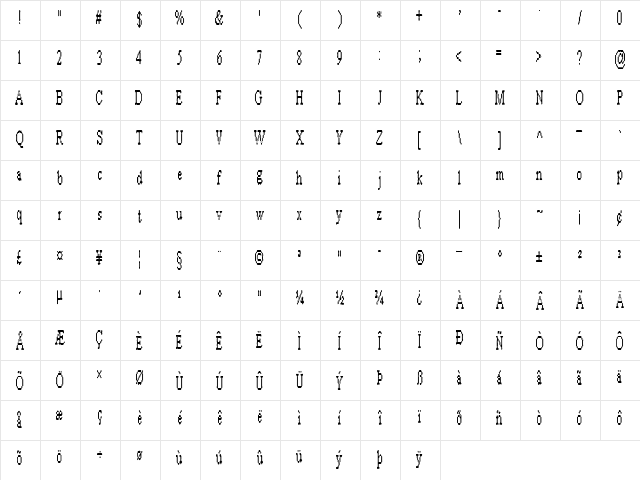
ARashNaziBlurb Regular
Design Context for ARashNaziBlurb Typeface
ARashNaziBlurb takes a measured approach to typography — its balanced proportions and neutral character make it a reliable workhorse for both digital and print work.